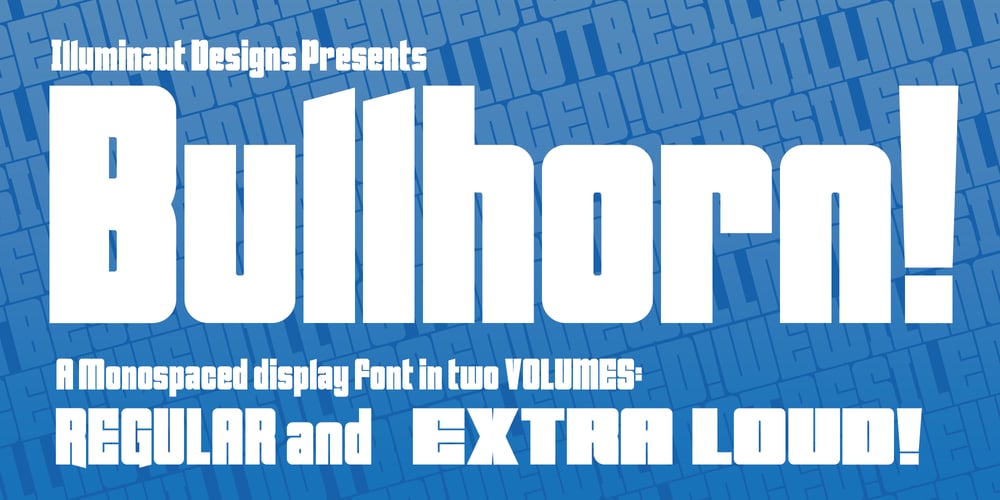
Bullhorn Font Family was designed by Jesse Smith and published by Illuminaut Designs. Bullhorn contains 2 styles and family package options. Broad, tightly-spaced verticals make Bullhorn hard to ignore. Perfect for headlines and product names, this font is designed to fill space. Two weights and loads of variable characters give Bullhorn incredible versatility and charm.